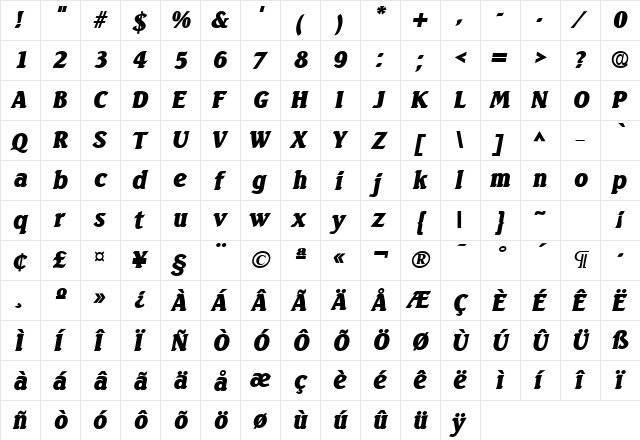
Seabird Heavy SF Bold Italic Font Preview
Seabird Heavy SF Bold Italic
Seabird Heavy SF Bold Italic Font Details
Design Context for Seabird Heavy SF Typeface
Seabird Heavy SF takes a measured approach to typography — its balanced proportions and neutral character make it a reliable workhorse for both digital and print work. The dynamic lean of this cut emphasises speed and emphasis in any layout. Its bold stroke weight gives it real presence on the page.
Pro Tip: Use Seabird Heavy SF for emphasis, pull quotes, and subheadings where its slanted energy can add rhythm to the layout.